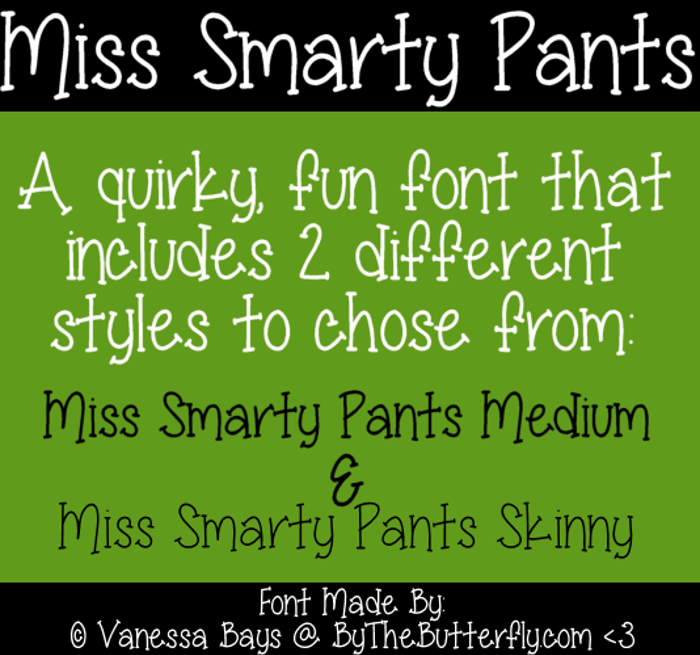
Miss Smarty Pants Font
About Miss Smarty Pants Font
Skinny Style
This is a SISTER font to my "Smell The Roses" Font. Including 2 styles to chose from. No special hearts, or characters included.
@MiffinFonts Ya, Its a sister font to Smell The Roses, yet a little more quirky. STR is more streamline and thinner 😄 Thanks girl!
I love this style. It reminds me of your "Smell The Roses" font 😃 Too cute!